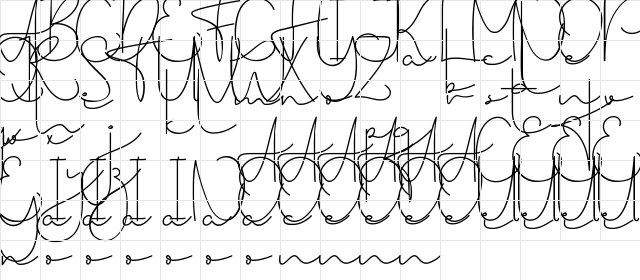
Himponis Demo Regular Free Font
Himponis Demo Regular
Foundry: Edric Studio
Designer: Widiyanti & Suci Anita
Design Context for Himponis Demo
Himponis Demo is a composed and adaptable typeface that performs quietly and consistently across a wide range of design contexts.
Pro Tip: Use Himponis Demo in both headline and body roles to test its range before committing to a single application.